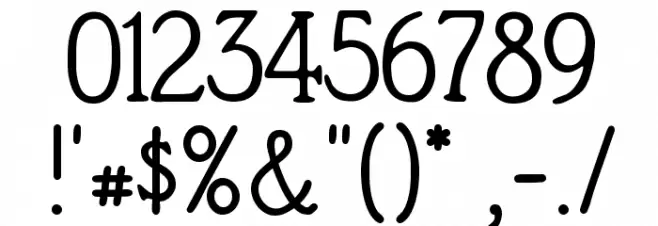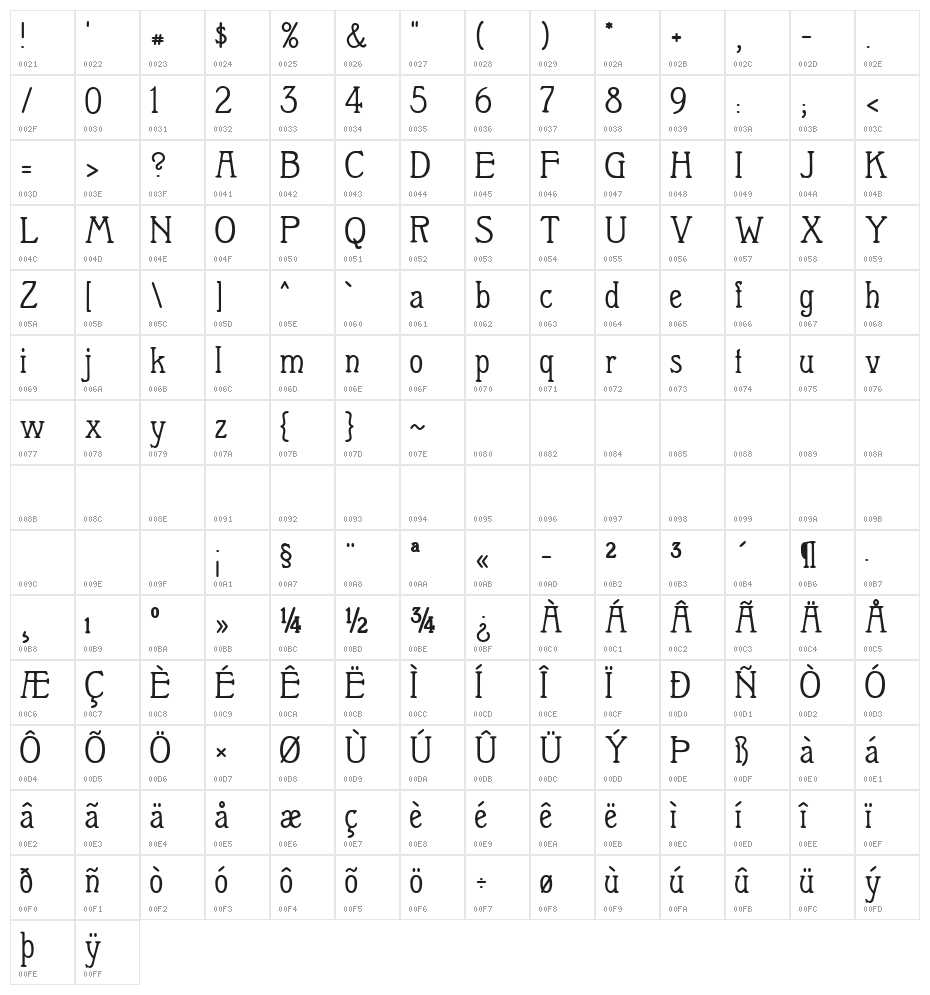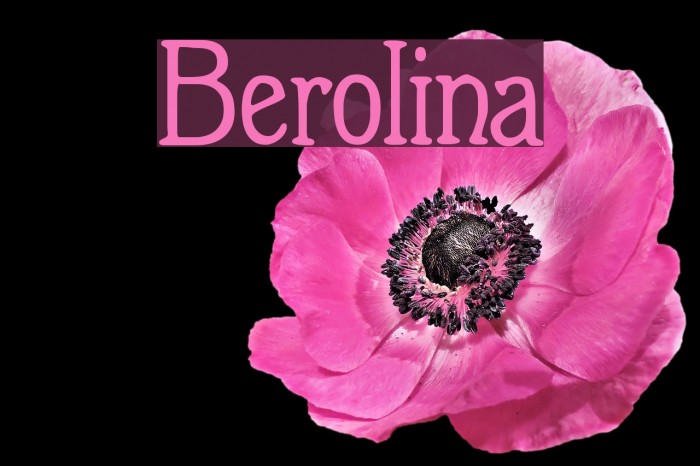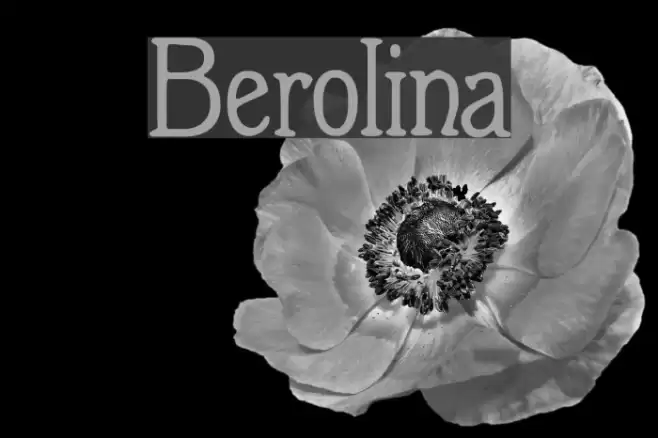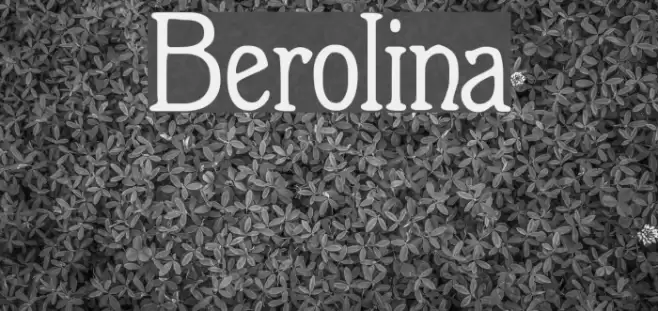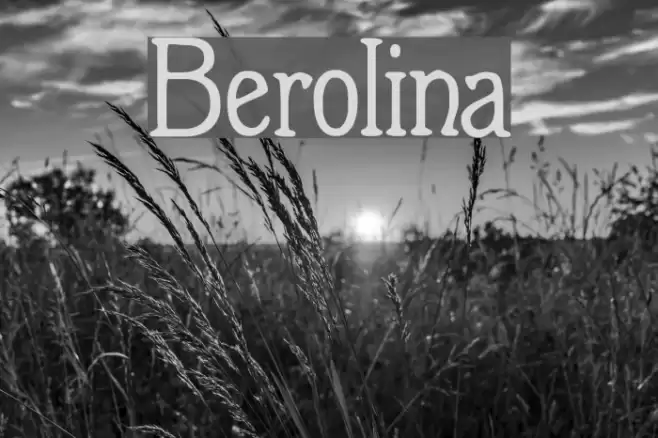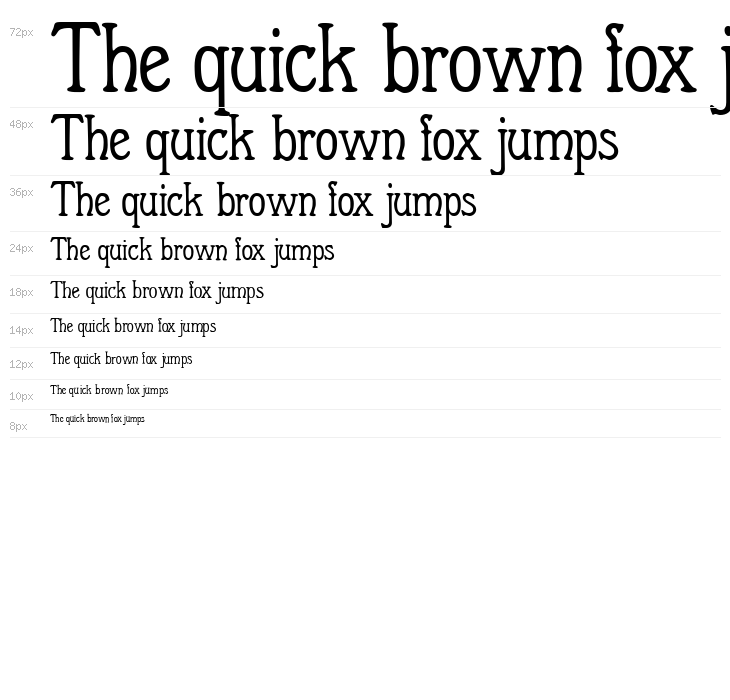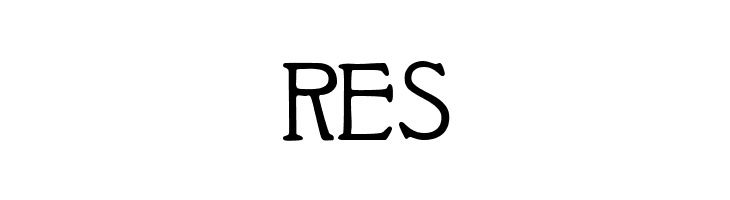
Berolina Font
Berolina Description
This font features a unique blend of classic and modern elements, characterized by its distinct serif style. The uppercase letters exhibit a traditional serif form with a slight curvature, adding a touch of elegance. The lowercase letters maintain a consistent style, with rounded edges and a slightly playful appearance. Numbers are clear and legible, with a uniform thickness that complements the overall design. Special characters are well-integrated, maintaining the font's cohesive look. The font's overall appearance is both sophisticated and approachable, making it suitable for a variety of design applications.